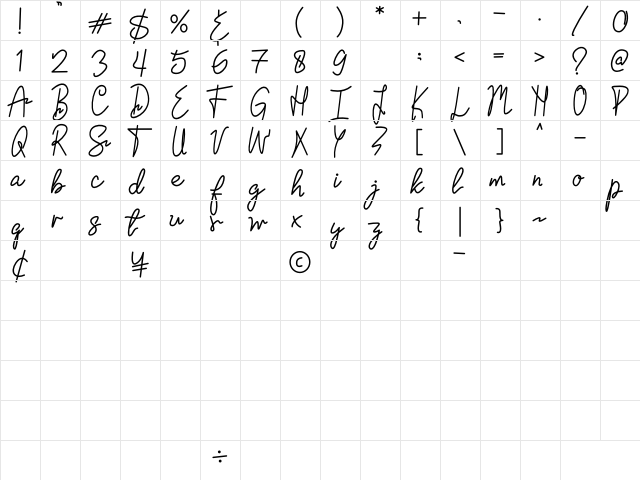
Qatar Regular
| Designer | abdul ghofur |
Design Context for Qatar Typeface
Qatar is a composed and adaptable typeface that performs quietly and consistently across a wide range of design contexts.